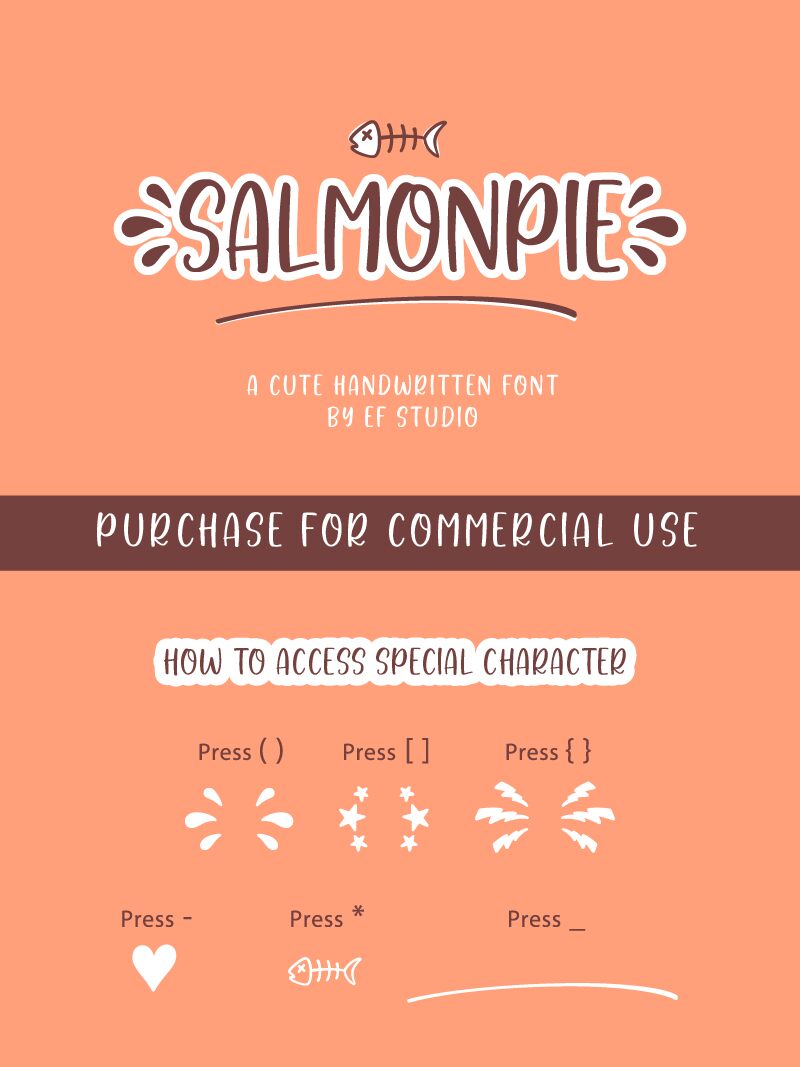
Features : Special characters such as Water Splash, Love, Fish Skull, Stars, Thunder, and Swash.
This is how to figure them out :
- Press ( ) = Water Splash
- Press [ ] = Stars
- Press { } = Thunder
- Press - = Love
- Press * = Fish Skull
- Press _ = Swash